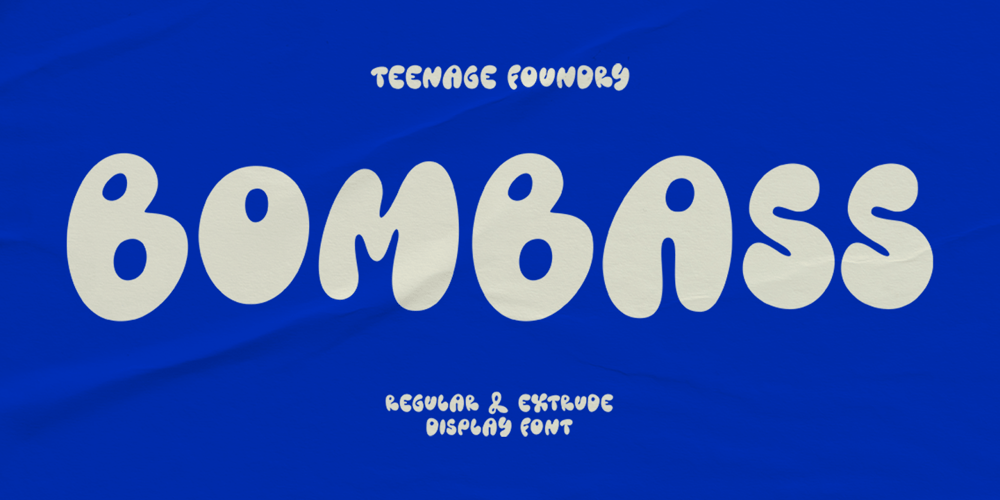
TF Bombass Font Family was designed by Miftahul Habib and published by Teenage Foundry. TF Bombass contains 2 styles and family package options. TF Bombass – Groovy Display Font By Teenage FoundryIntroducing our latest font creation – a groovy typeface that’s sure to transport you back to the funky, psychedelic era of the 60s and 70s! With its bold, playful style and unique character, this font is perfect for adding a retro feel to your design projects.Features: Uppercase, Lowercase, Numeral, Punctuation & Multilingual.